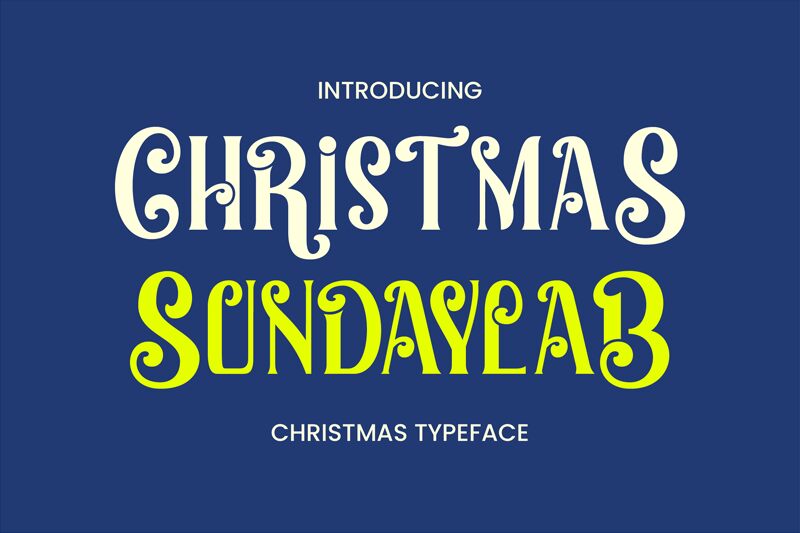
Christmas Sundaylab font by Ahwe Project brings the joy of the holiday season to your work. This Christmas-themed typeface showcases playful curls, whimsical design, and ornamented elements. Influenced by Art Nouveau, this condensed font can make any creative design stand out with elegance and festivity.
Perfect for holiday cards, posters, branding projects, wedding invitations, advertisements, product packaging, book covers, T-shirt designs, or social media posts. Use the font in game interfaces and video graphics as well as logos and movie titles for a lovely tone of voice.
Christmas Sundaylab